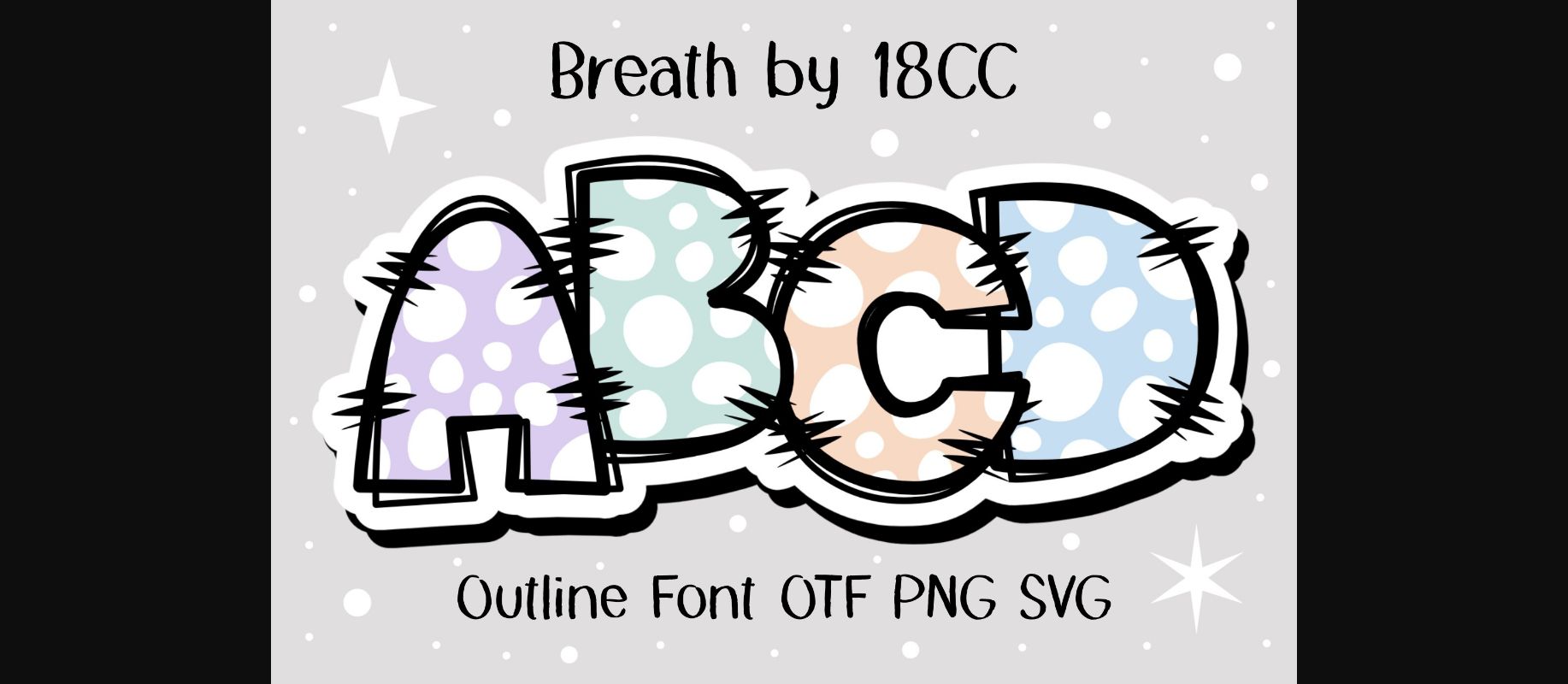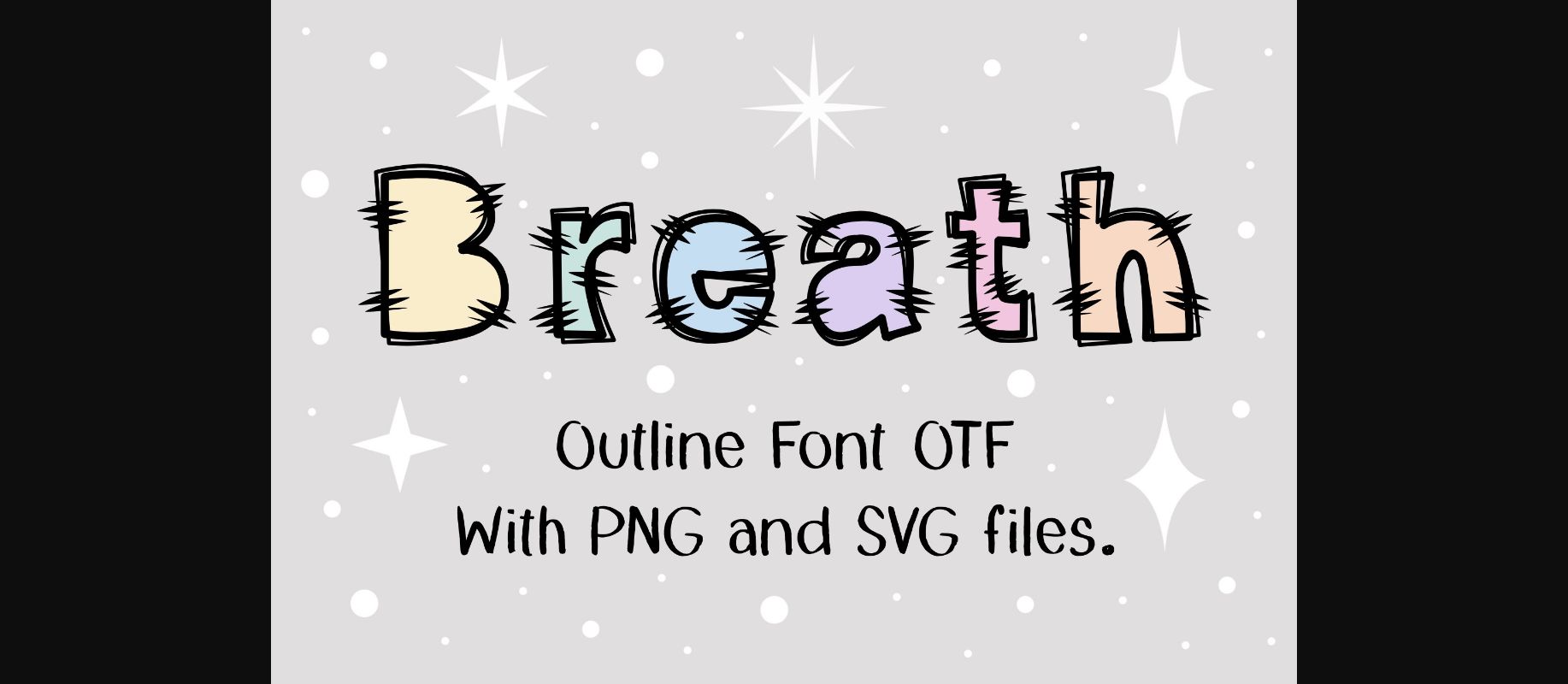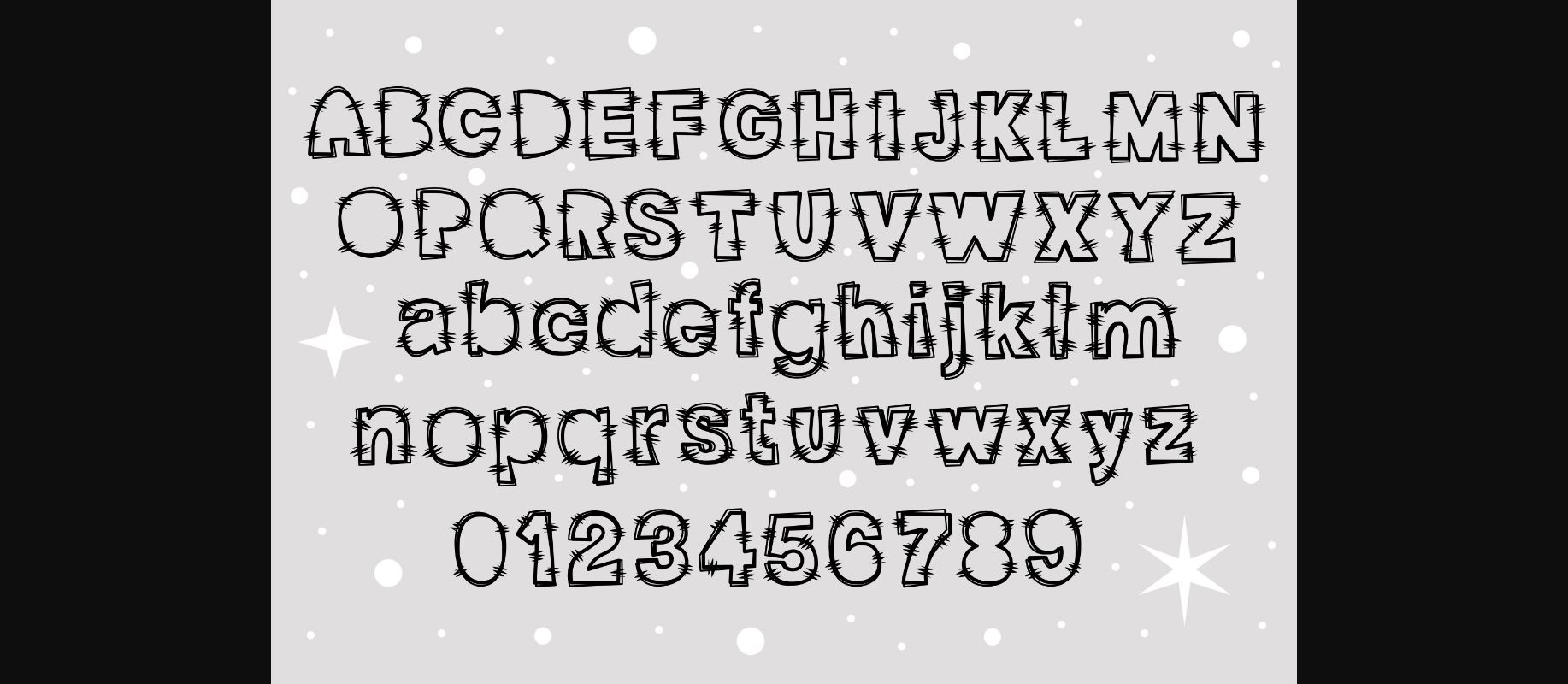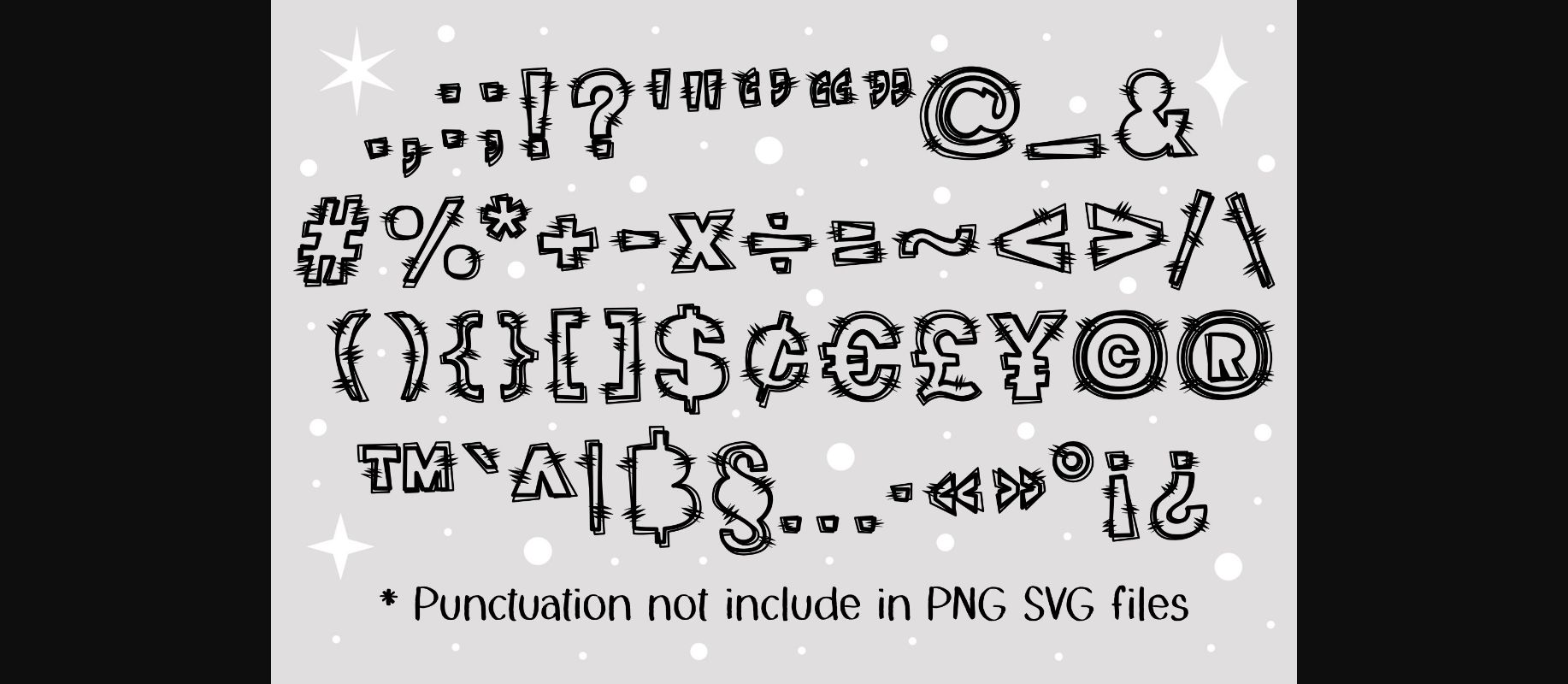
About Breath Font
Breath is a cute and funny font. This font is perfect for a design that requires a fun accent. Is suitable for book covers, coloring, posters, packaging, merchandise, logotype, and much more.